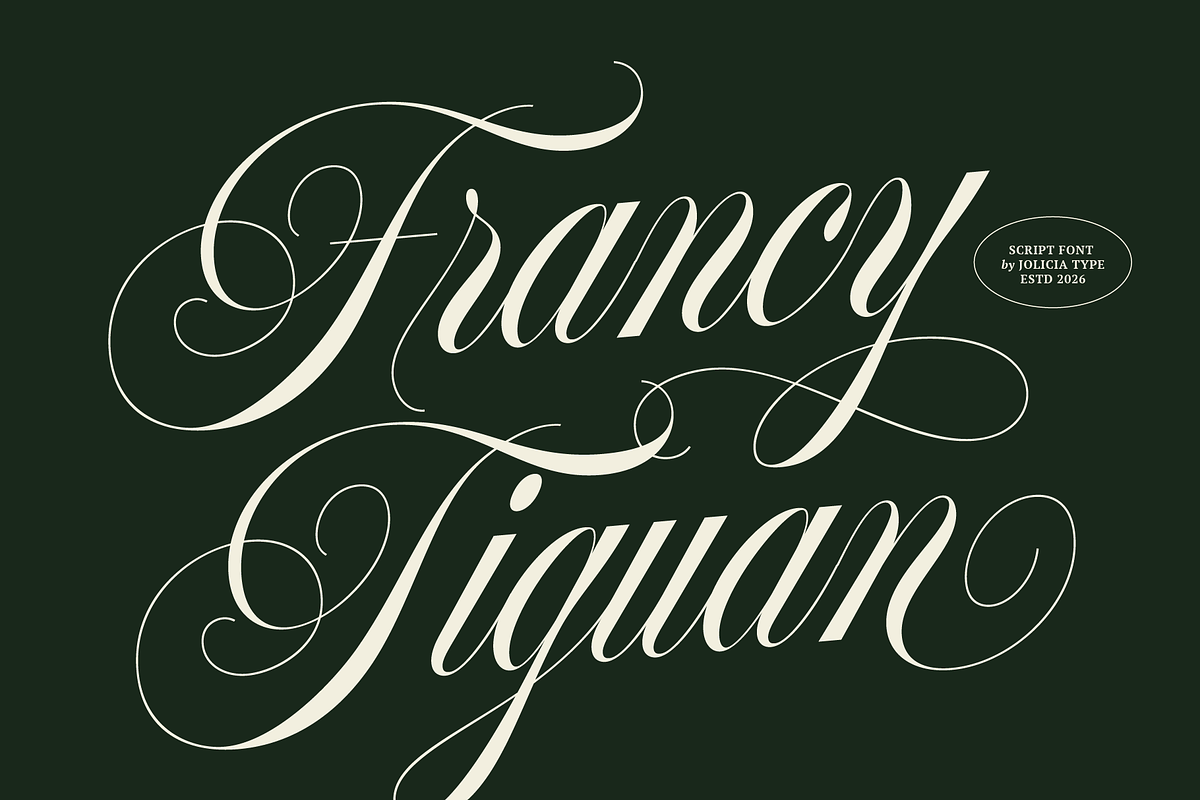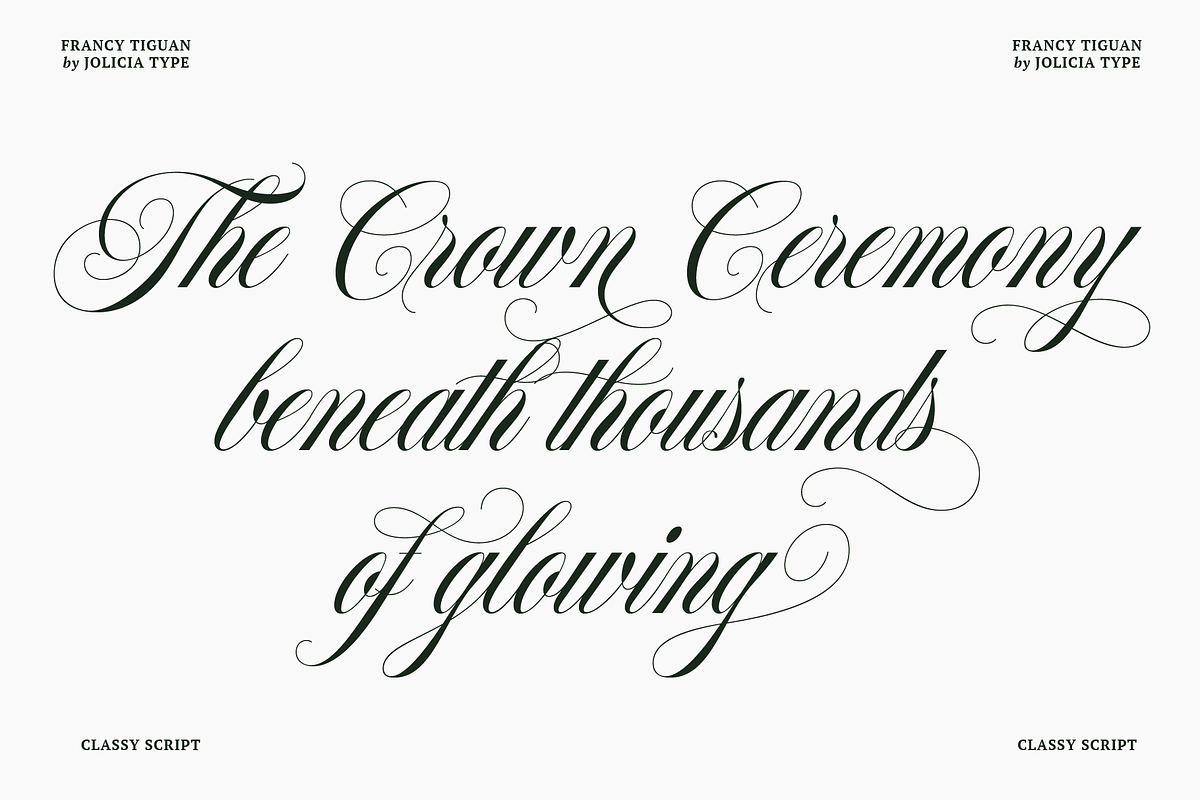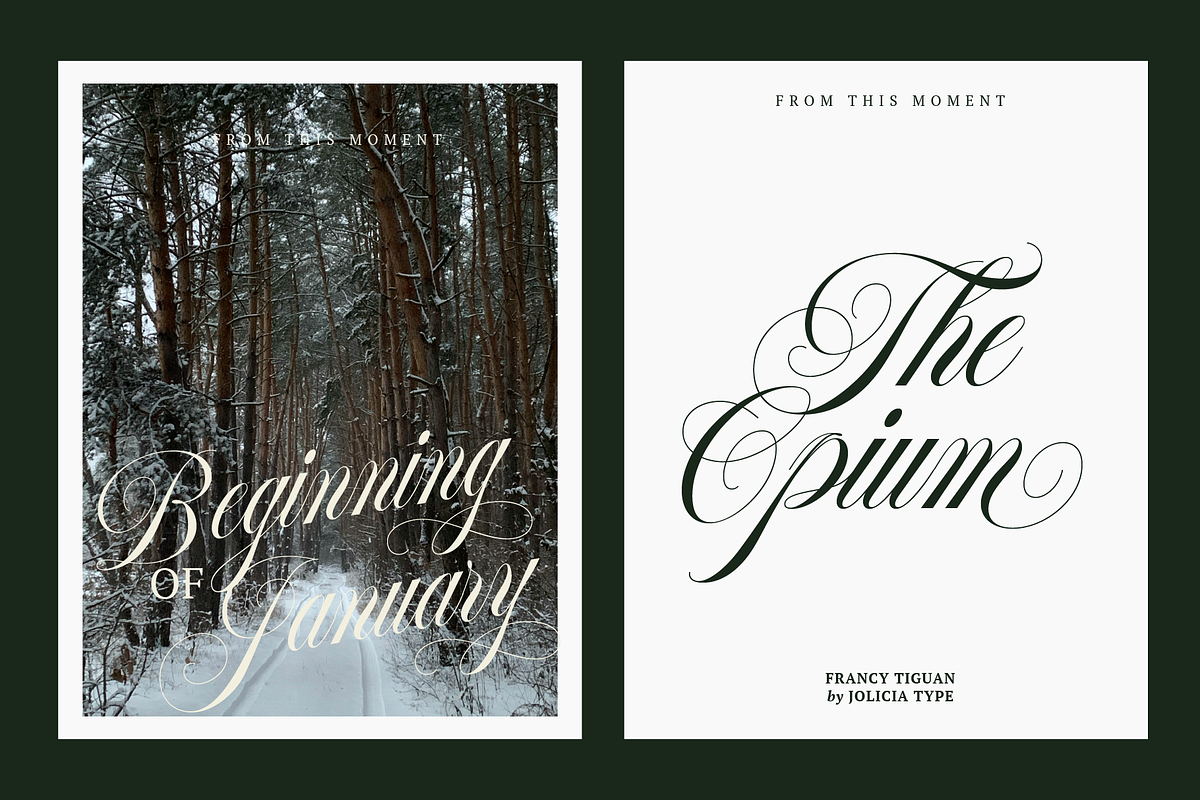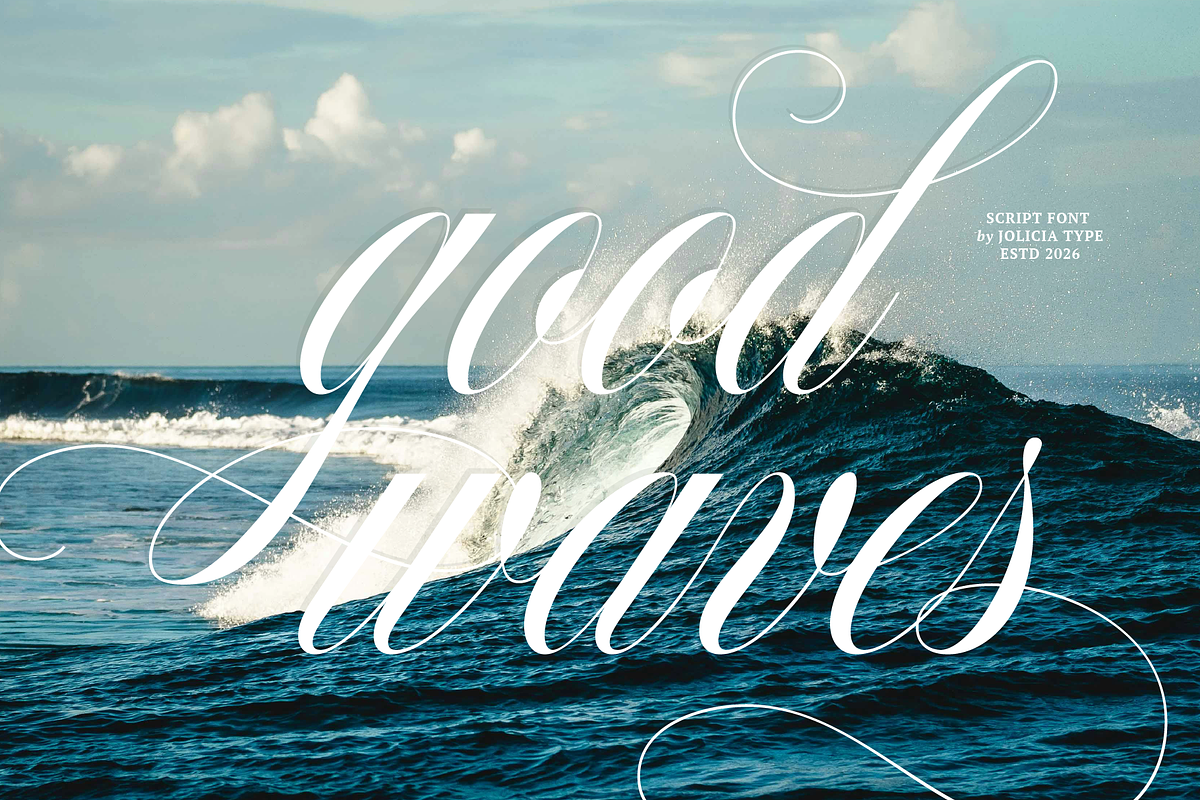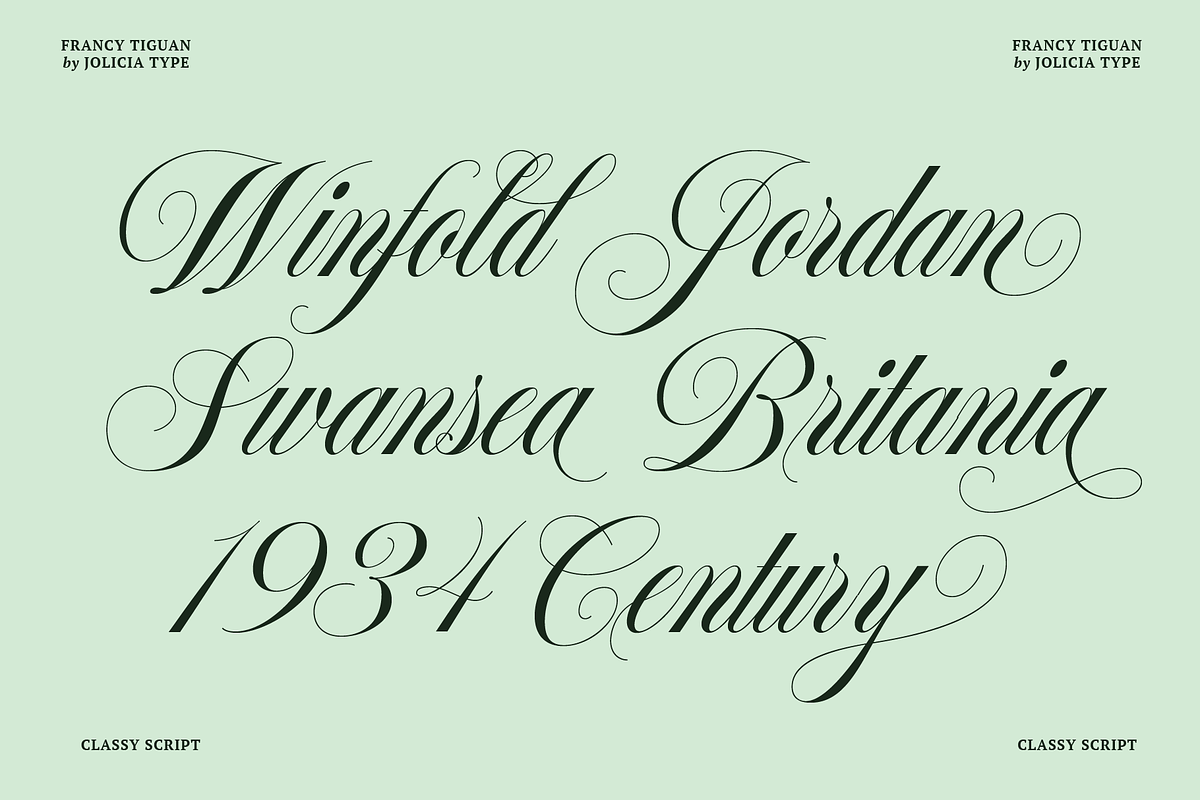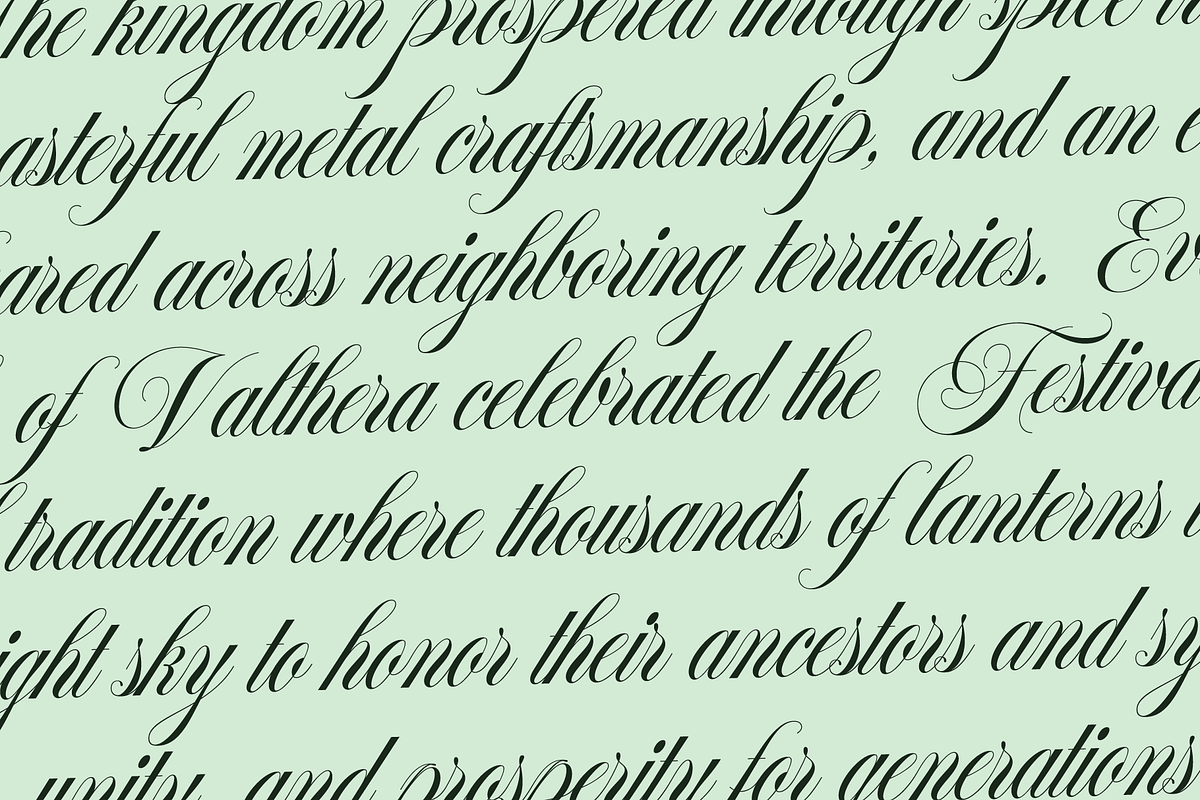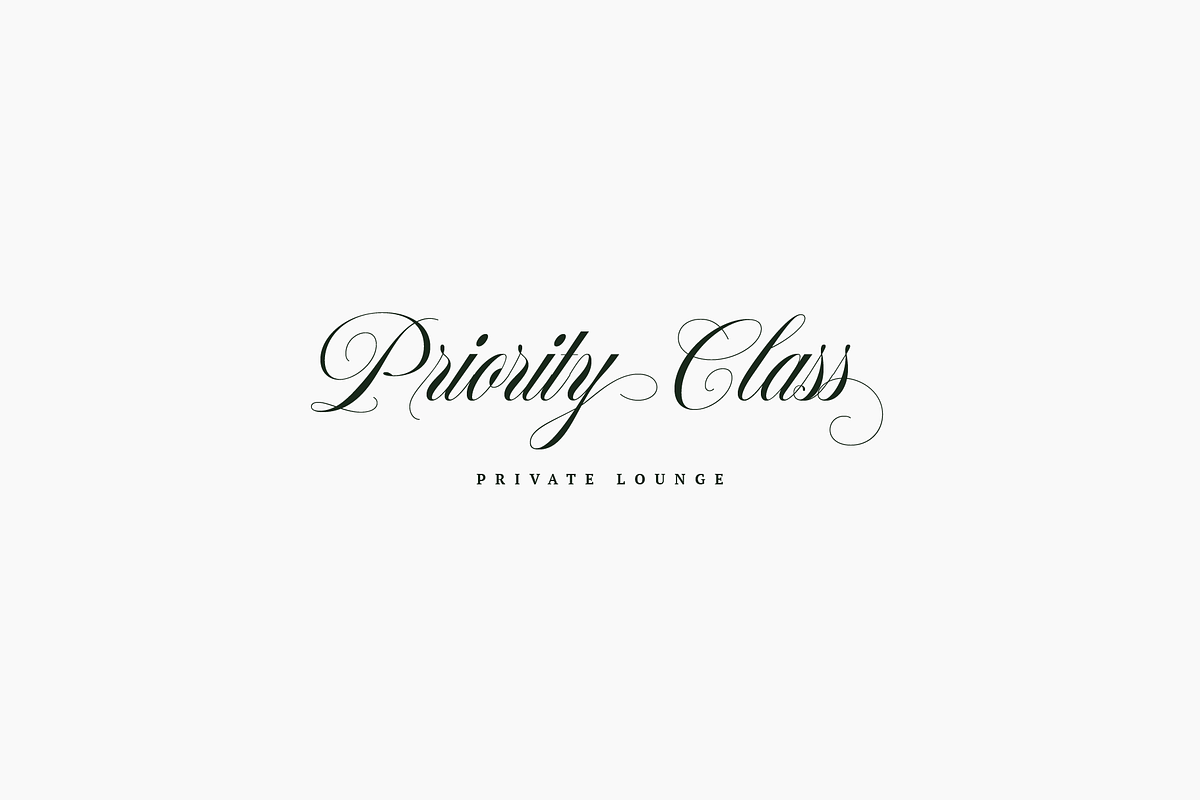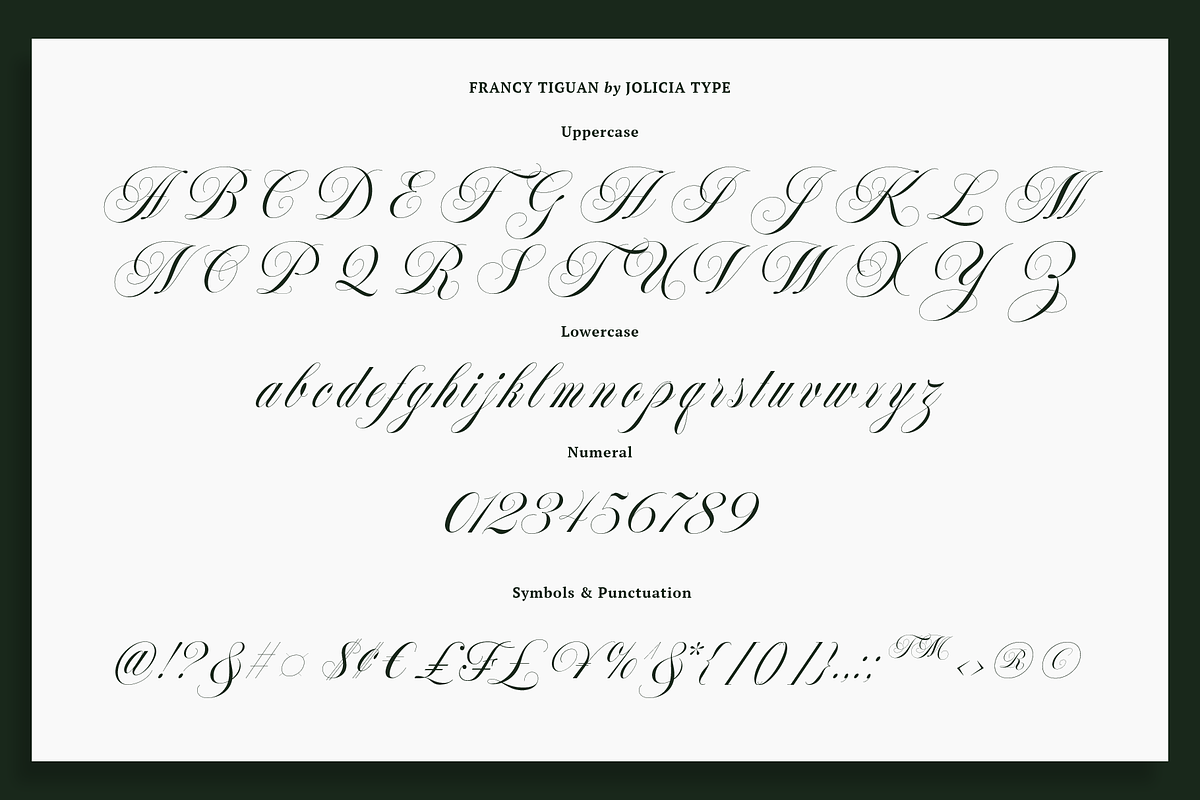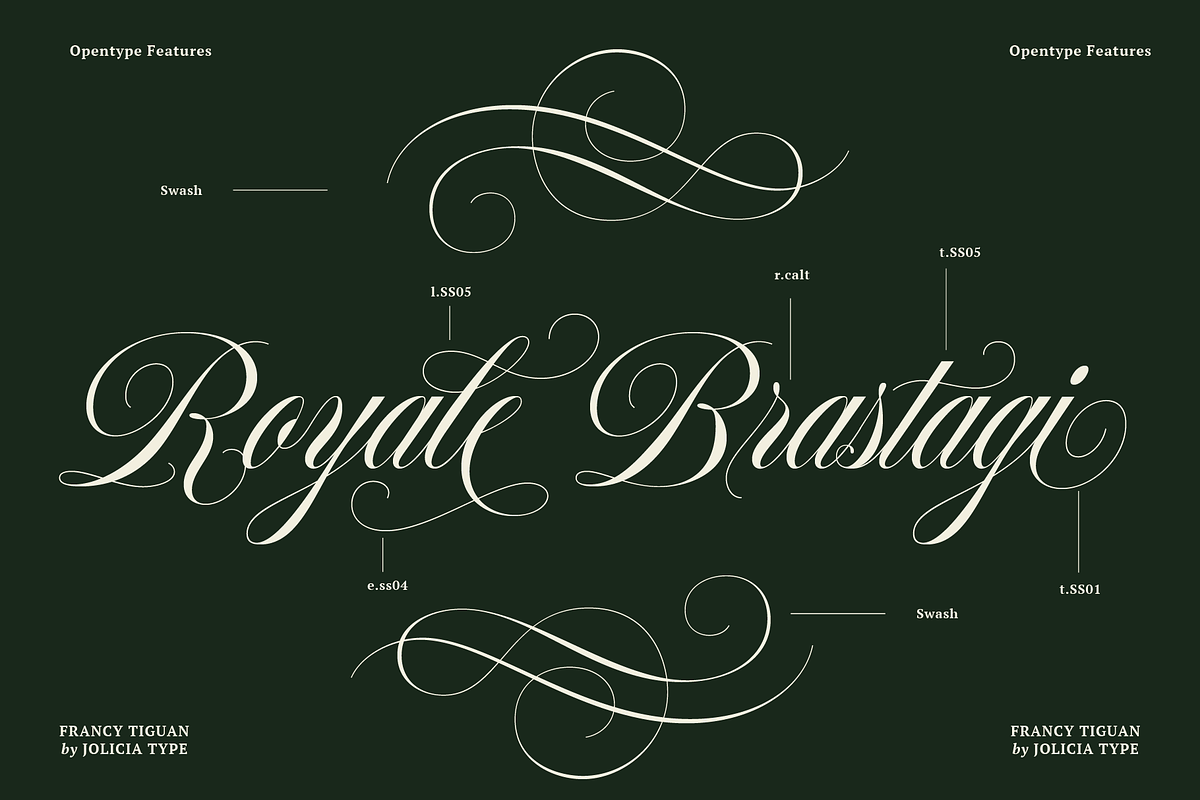
Francy Tiguan | Classy Script Font
Francy Tiguan is a classy script font that combines elegant calligraphy with modern luxury aesthetics. Designed with flowing swashes, graceful curves, and refined letterforms, this font delivers a sophisticated and romantic impression perfect for premium branding. Its stylish handwritten look makes Francy Tiguan ideal for wedding invitations, feminine logos, fashion branding, beauty packaging, social media quotes, editorial design, and luxury typography projects. With timeless elegance and artistic detail, Francy Tiguan adds a chic and high-end touch to every creative composition. Perfect for boutique logos, cosmetic branding, luxury packaging, stylish magazines, and elegant digital content with a timeless feminine appeal. Designed to bring sophistication, charm, and graceful personality into every modern creative project.